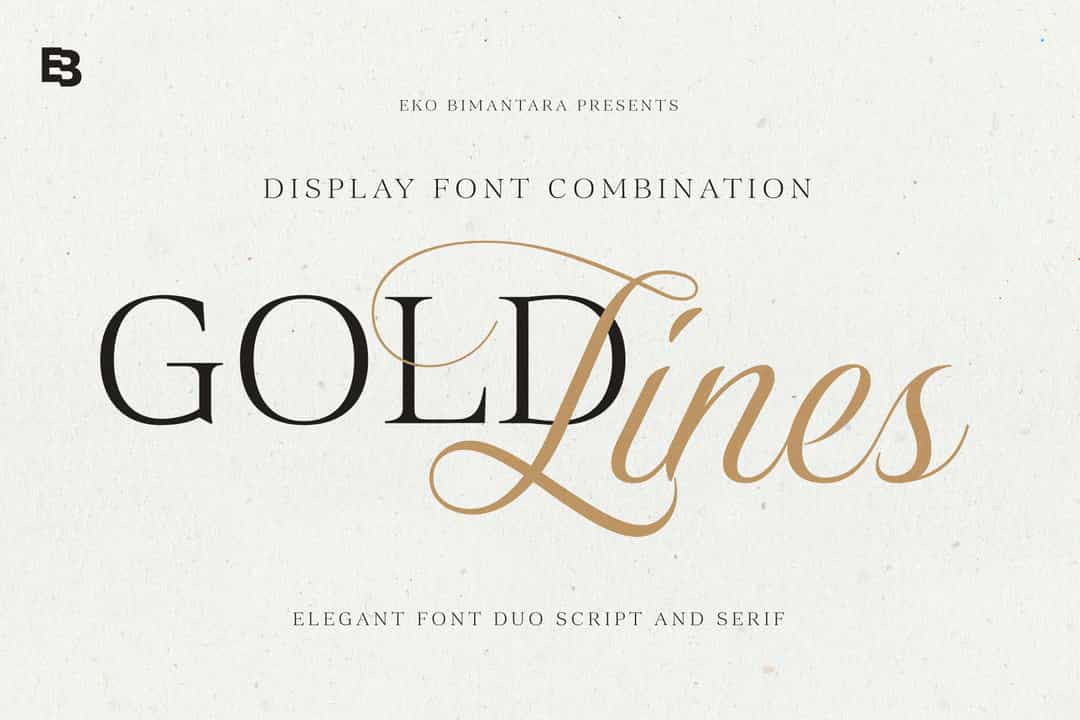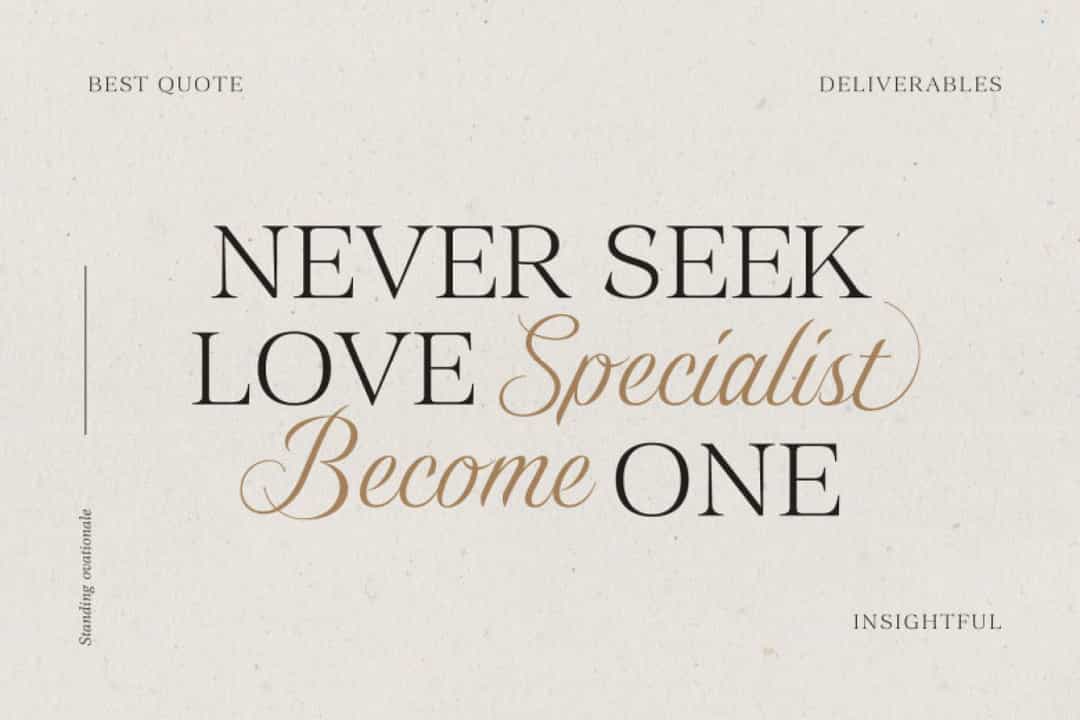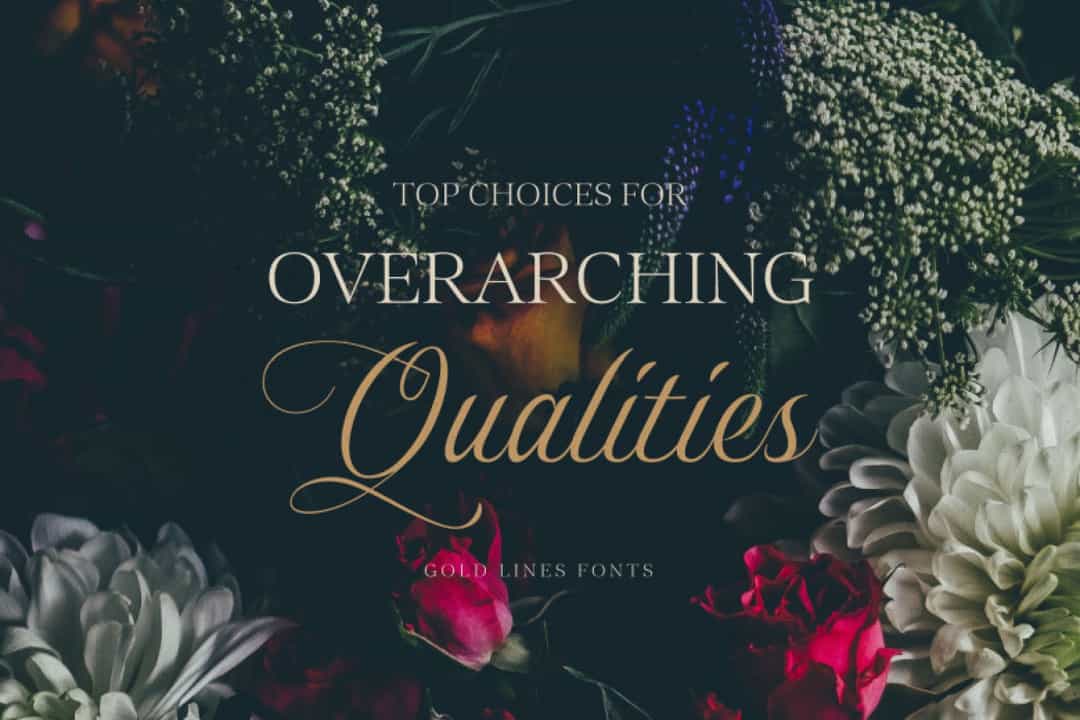
Gold Lines is an exquisite font pair consisting of an eye-catching serif font and classic script font, creating an exquisite combination that exudes beauty, charm, and luxuriousness to impress viewers. Boasting exquisite lines and intricate details that give a delicate feminine feel, its serif font conveys traditional elegance while its OpenType features enable users to improve their typography through ligatures, alternate characters and swashes.